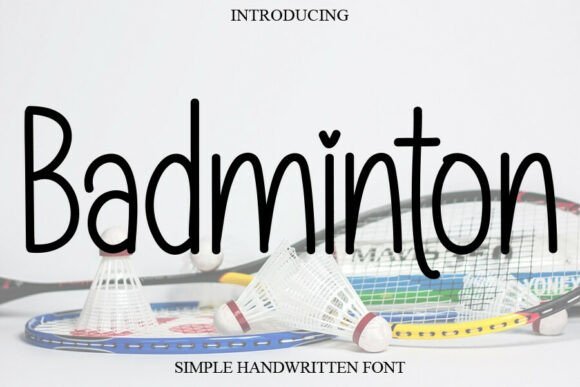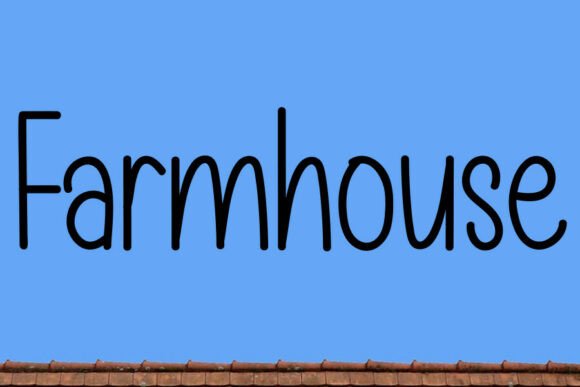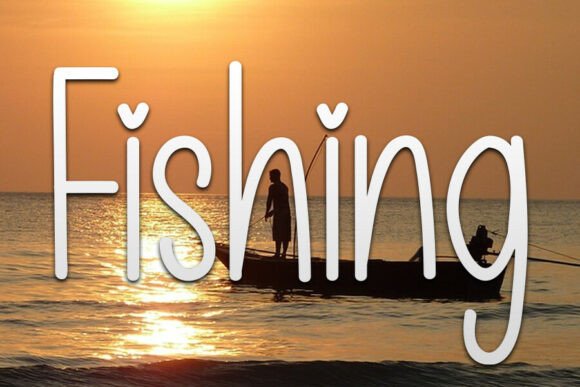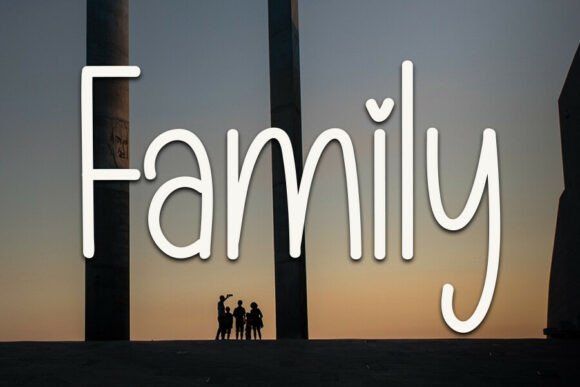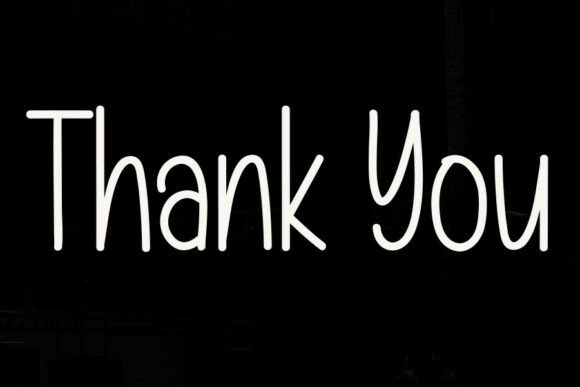
The Perfect Serve: Introducing Badminton Font
Have you ever been stuck on a design project, searching for that one font that captures the essence of your idea? You know, that moment when the perfect combination of style and functionality clicks, and your design comes to life? For many designers, this is a familiar experience. It’s a feeling of excitement and accomplishment, knowing that your project is about to take a giant leap forward.
One font that can help you achieve this moment is Badminton Font. This simple handwritten font is perfect for adding a natural and effortless touch to your designs. With its versatility, it can be used for anything from greeting cards to headlines, making it a valuable addition to any designer’s toolkit. Whether you’re working on a personal project or a client’s campaign, Badminton Font is sure to bring a unique and personal touch to your work.
Badminton Font Key Features
- Font Family: Badminton is a sans-serif font family designed for digital use.
- Unique Characteristics: The font features a modern and clean design, with distinctive rounded corners and subtle rounded edges, giving it a friendly and approachable feel.
Designer Review: Badminton Font
Overall, I’d say the Badminton Font is a decent addition to any typographer’s arsenal. There are some things it does quite well.
- ✨ Unique Character: The font has a distinct, playful feel to it. The rounded edges and soft lines give it a friendly, approachable vibe.
- ✨ Versatility: Badminton Font comes in a range of weights, from light to bold, making it suitable for a variety of projects, from body text to headings.
- ✨ OpenType Features: The font supports OpenType features like ligatures and swashes, adding an extra layer of personality to text.
However, there are some limitations to consider.
- ⚠️ Limited Language Support: The font only includes characters for Latin-based languages, which may be a drawback for projects that require multilingual support.
- ⚠️ Limited Kerning: While the font’s OpenType features are a plus, the kerning could be improved, particularly for certain letter combinations.
- ⚠️ Font Weight Consistency: Some of the font weights feel a bit inconsistent, which can affect the overall aesthetic of a project.
Overall, I’d give the Badminton Font 3.5 out of 5 stars. It’s a solid choice for projects that require a friendly, approachable feel, but its limitations may hold it back from being a go-to font for more complex projects.
Tips for Getting the Most Out of Badminton Font
Use the Badminton Font for creative and playful projects, such as:
– Sports-themed designs
– Kids’ party invitations
– Fun and quirky social media posts
The Badminton Font is ideal for: